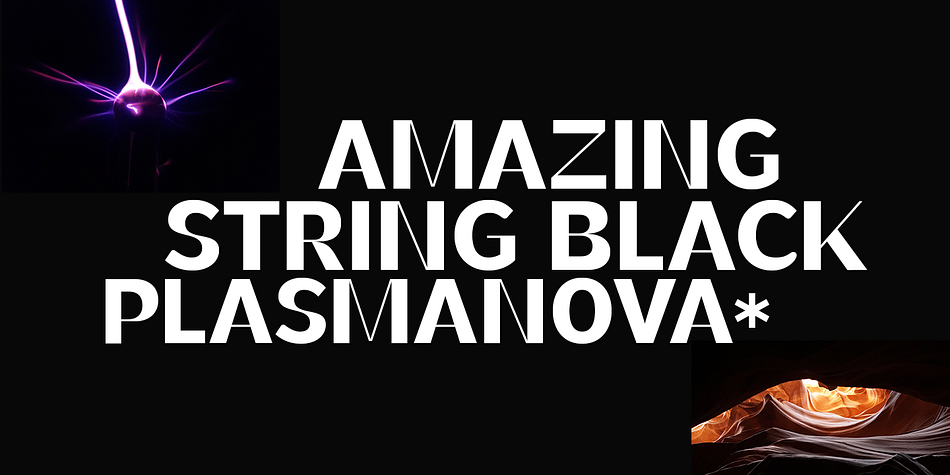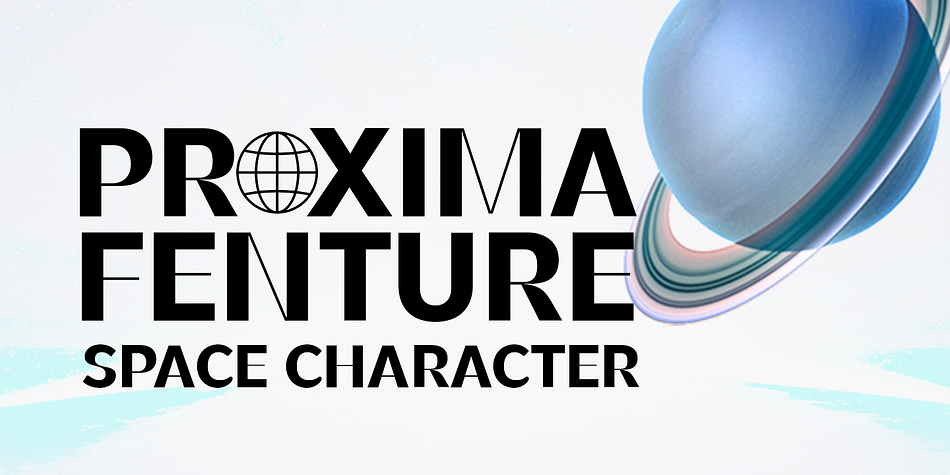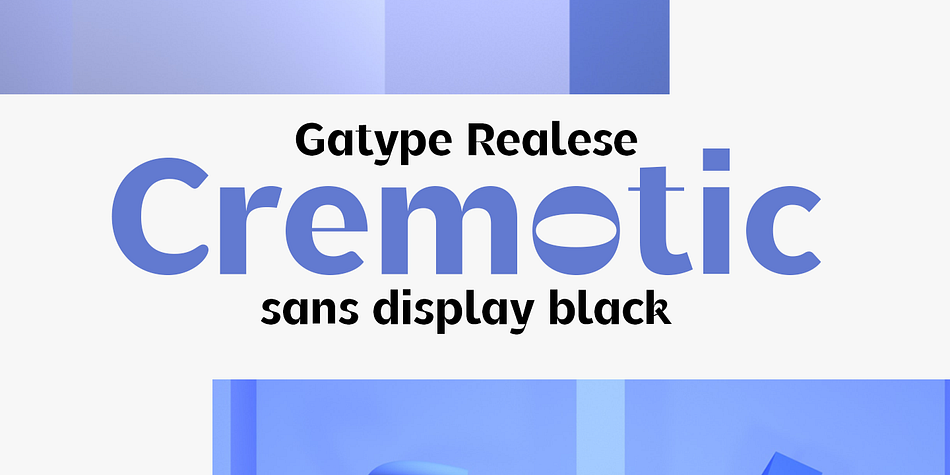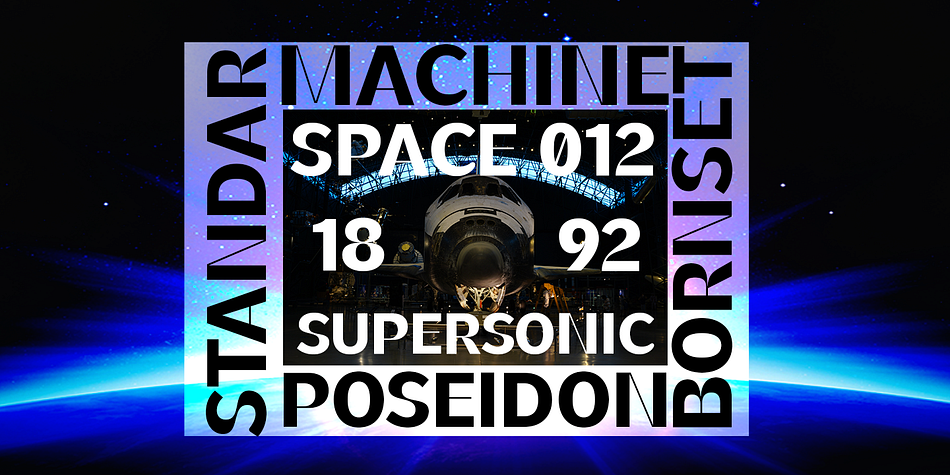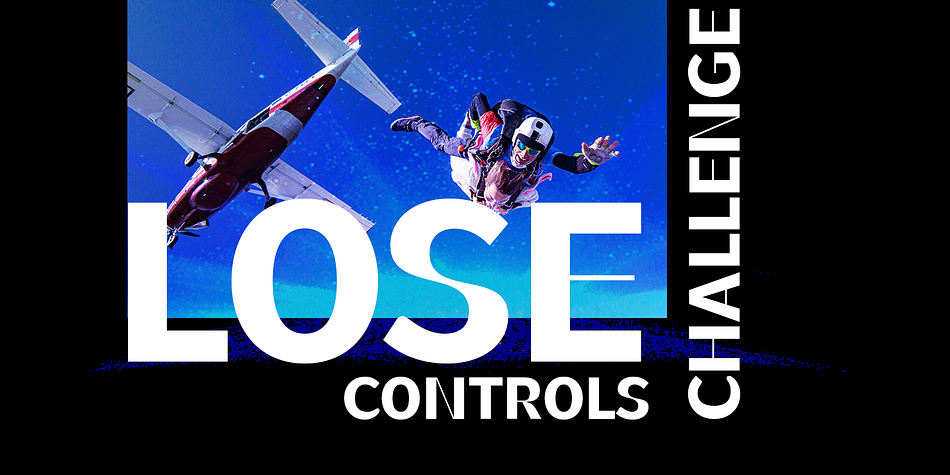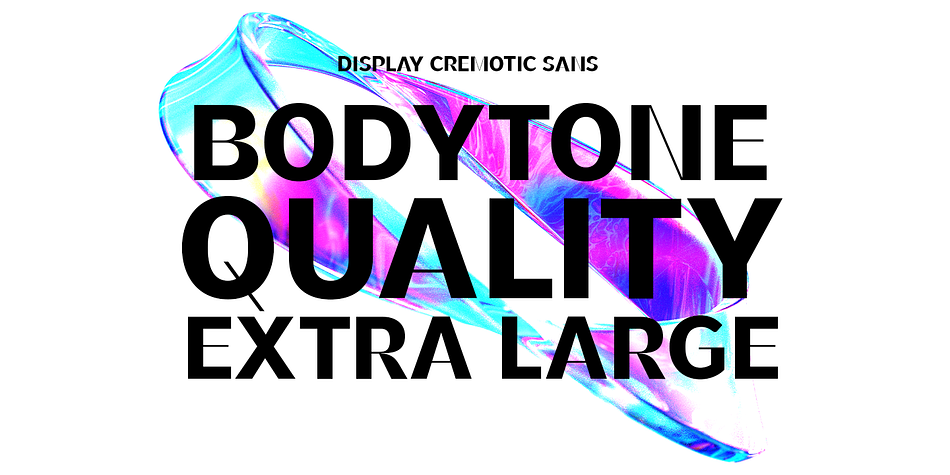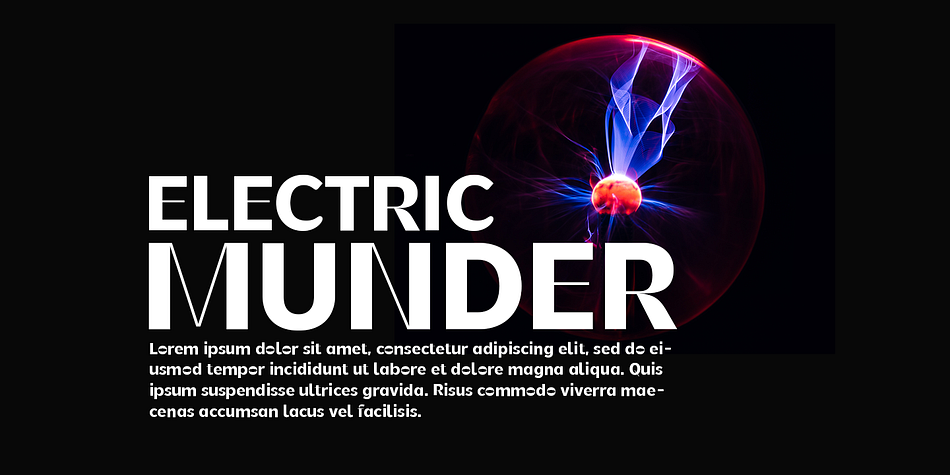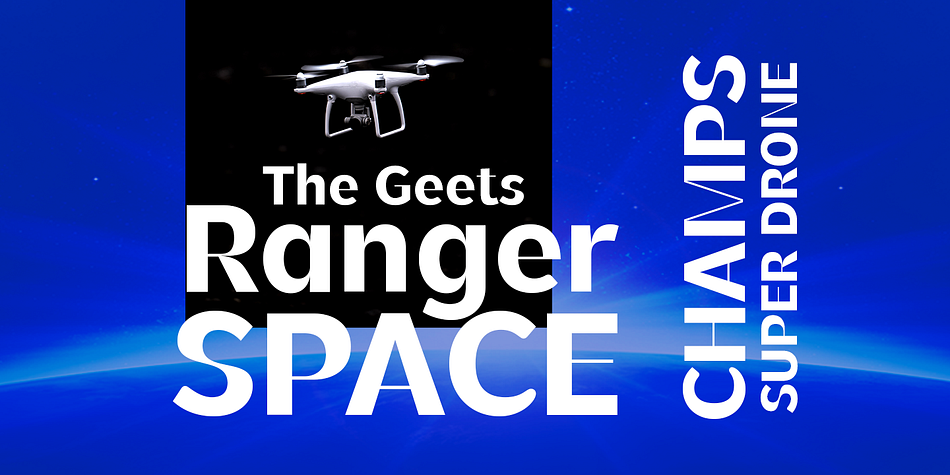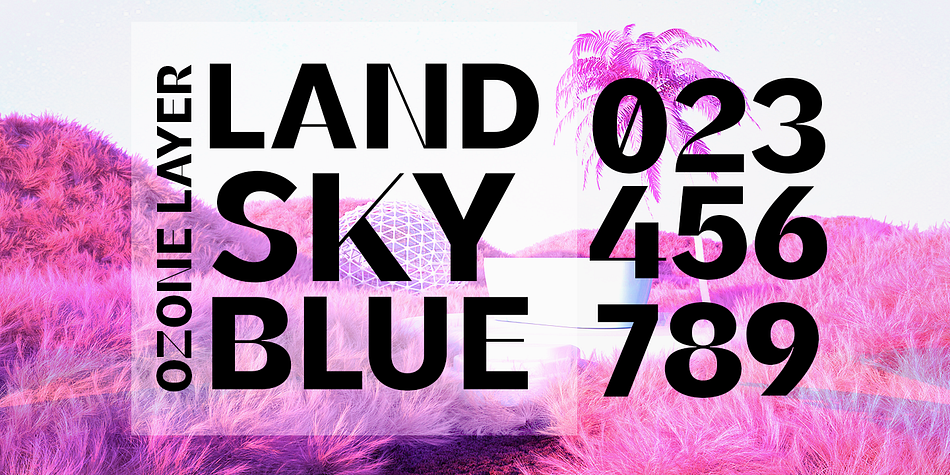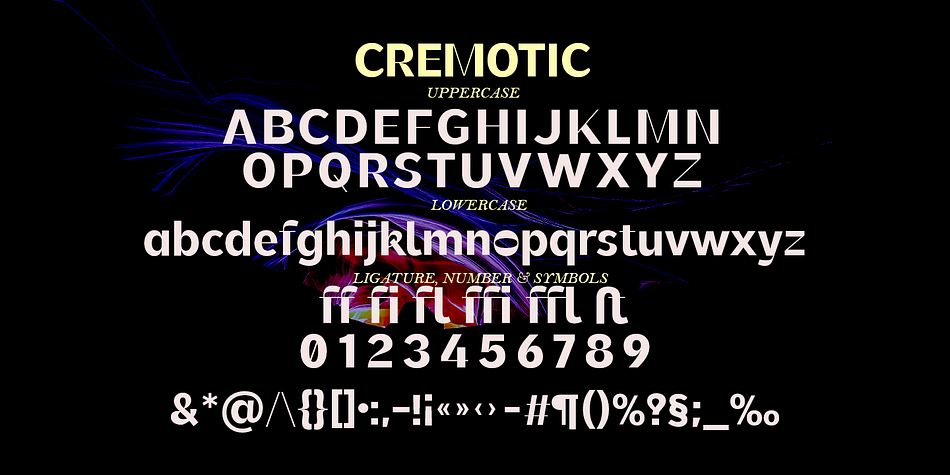
Cremotic
Cremotic is a display sans font family published by Gatype.
Cremotic Sans is stylish with extreme cuts, sharp angles and interactive straps. Affected characters are spread across three capital-only subfamilies, with distinct styles, and distinct personalities. The bold separation of characters and the considered standard of ligature create a type that is solid, modern and attractive.
Cremotic is a modern fashion serif font, each letter has been carefully crafted to make your text look unique. Don’t hesitate to send me a message if you have any questions!